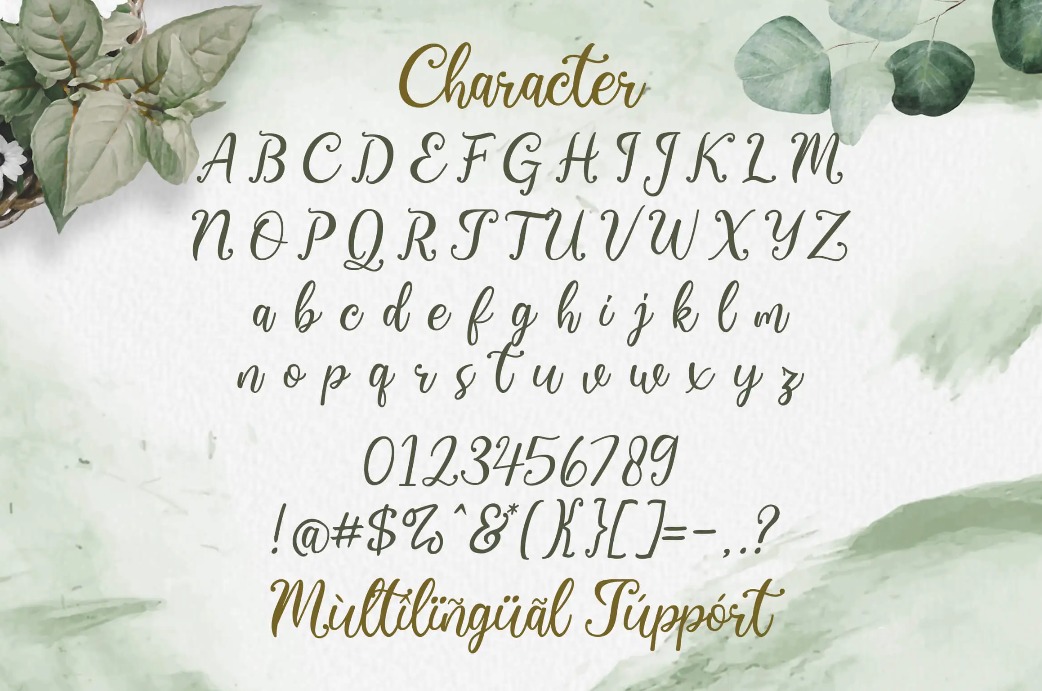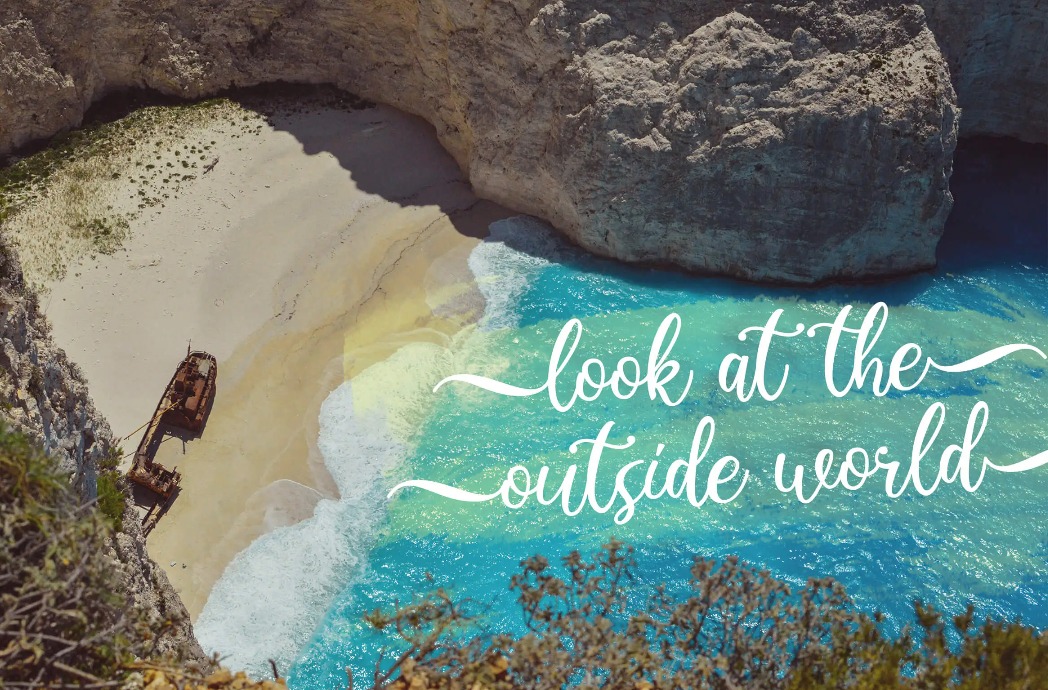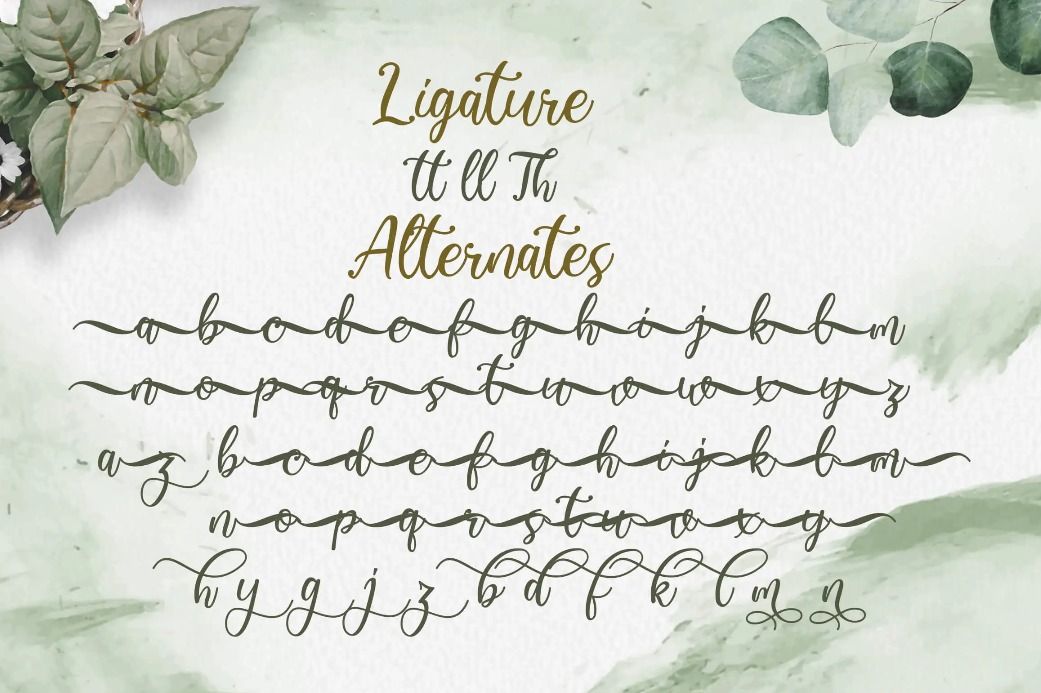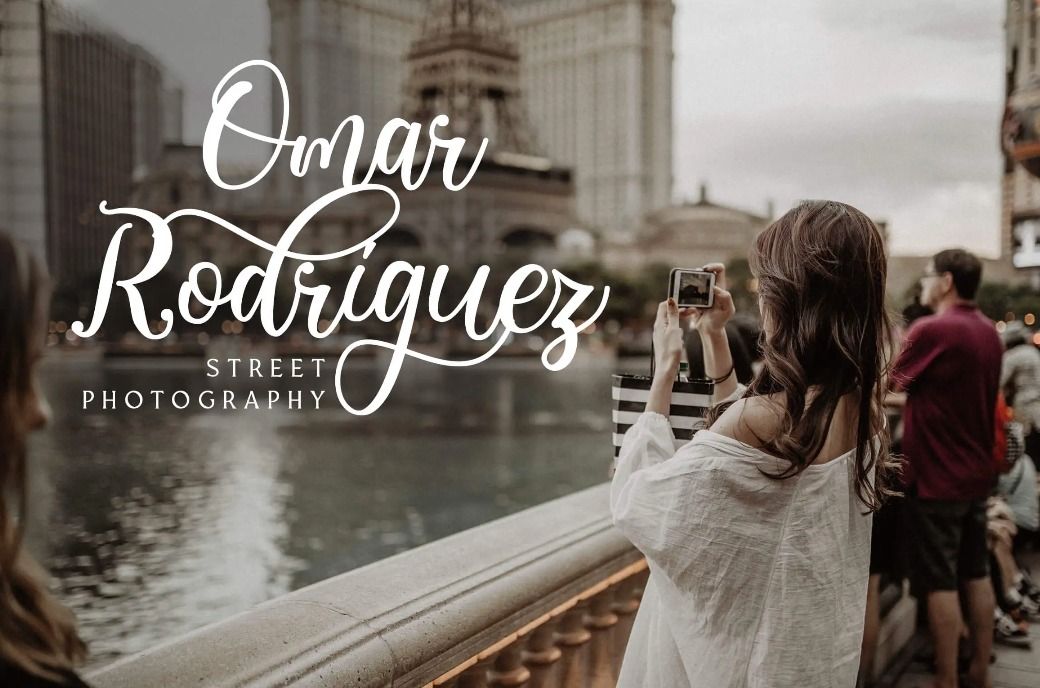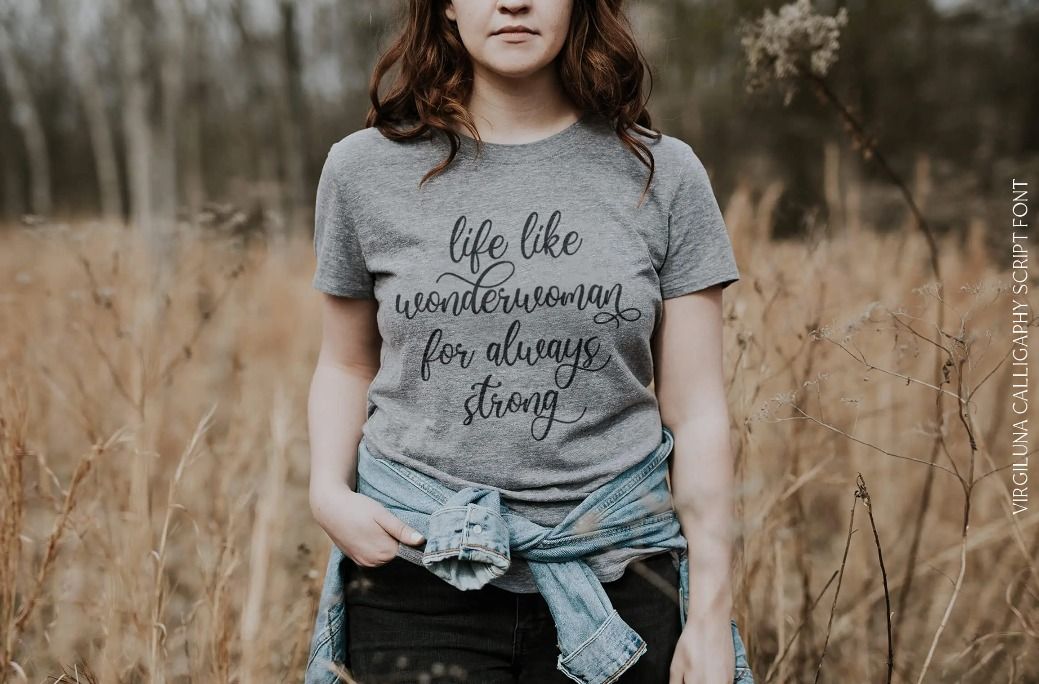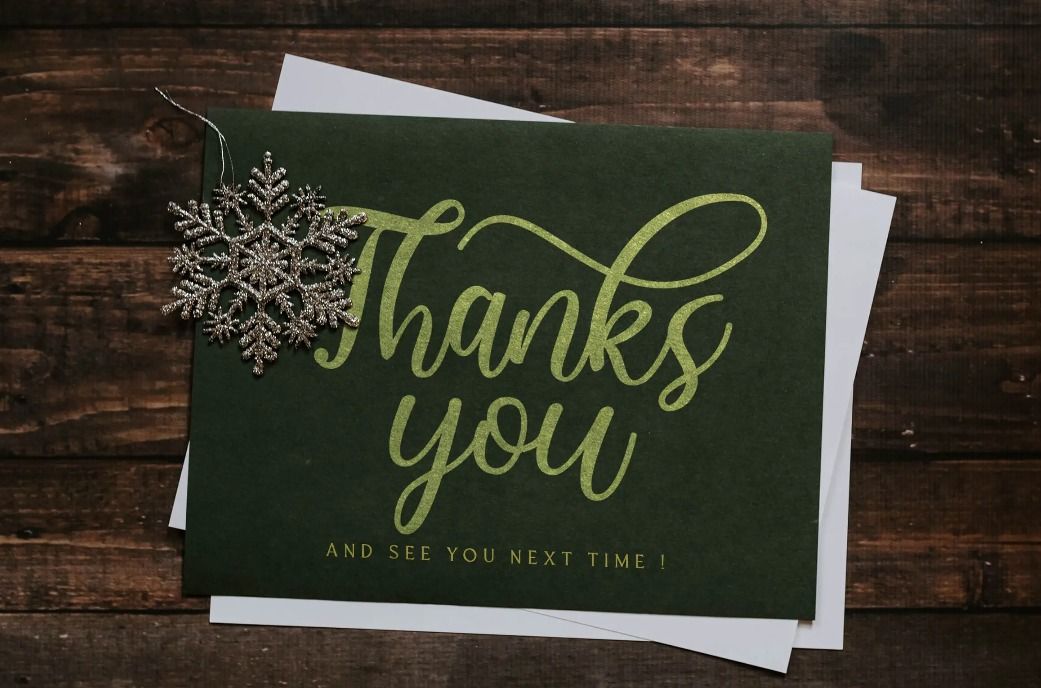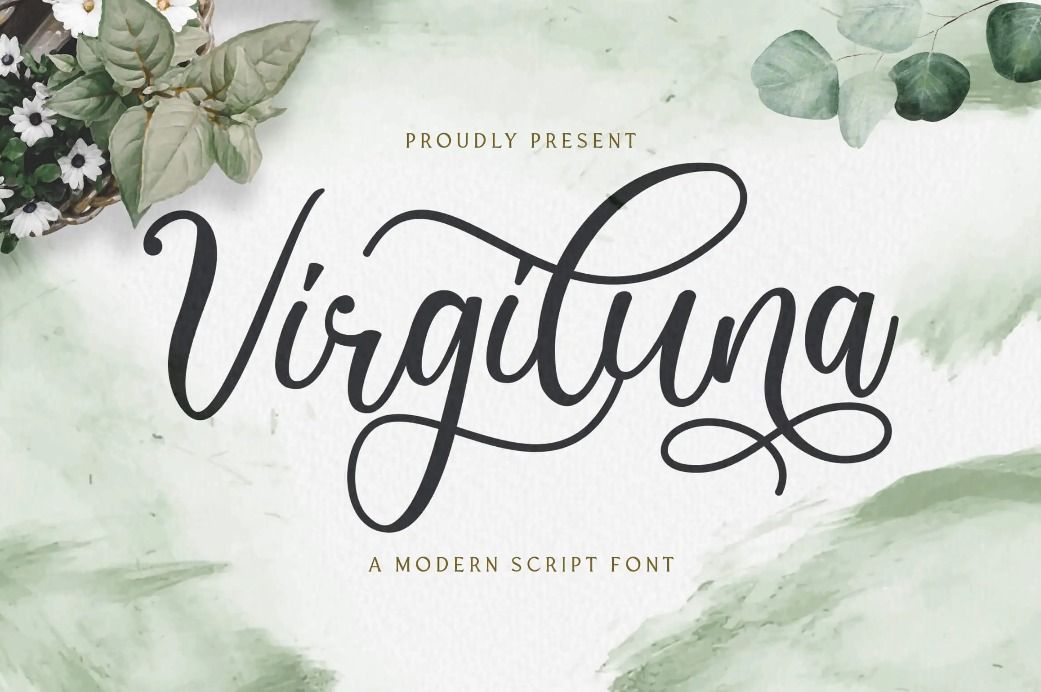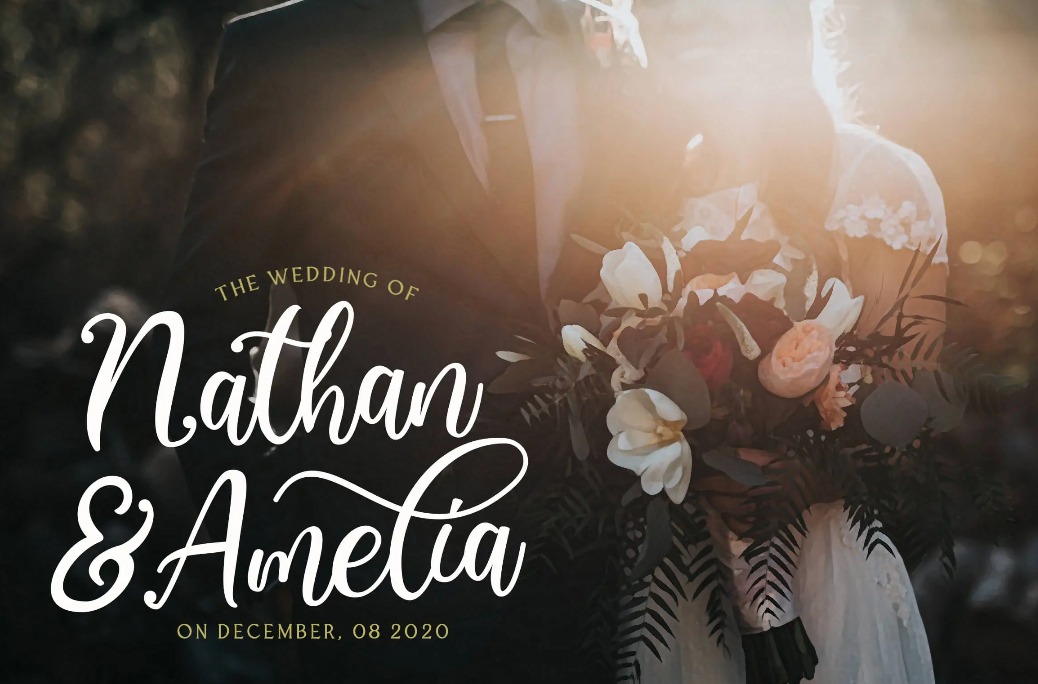
Virgiluna Font: Modern Handwritten Style for Bewitching Designs
Modern handwritten style is an excellent typography choice to present an exclusive and stunning feel. The swashes on each letter will be a decoration that gives a sweet and dramatic feel. Virgiluna font is a modern handwritten style that you can utilize for diverse designs, both formal and casual.
Deeper Exploration of Virgiluna Font
Virgiluna Font: Modern Handwritten Style for Bewitching Designs
Explore Virgiluna Font in Deep
Since its appearance is similar to handwritten brush strokes, calligraphy script fonts never fail to provide intimacy and exclusivity. The thick and thin lines on the letters also give a touch of stunning beauty. Letters connected to each other look neat and have excellent legibility.
This is because the kerning between letters is quite loose. Even though there are swashes, the decorations are present in perfect proportions so as not to make the design look crowded.
Deeper Exploration of Virgiluna
Features that can level up your design include uppercase letters, lowercase letters, punctuation, numbers, ligatures, and alternate characters. Combining these features with appropriate portions will create captivating text.
How to Perform the Virgiluna Font in Your Design?
Besides creating personal designs, you can also use Virgiluna for commercial designs. Its visually pleasing appearance will be a powerful weapon that can withdraw attention. Virgiluna enables you to create atmospheric and engaging writing which is perfect for the following visual design projects.
1. Photography
Virgiluna Font for Photograph
Photography is the art of communicating through photos. Each photo usually has a story and ambiance to convey to the audience. Sparks more attention by beautifying the photo with an appealing yet readable font for the text element!
Combining uppercase letters, lowercase letters, and alternate characters from the Virgiluna typeface in the text will make it look more stunning. Furthermore, curved and wavy lines on the alternate character swash of this font will give a strong effect that is adorable yet classy.
2. Wedding Invitation
Wedding Invitation with Virgiluna Font
Getting married is a sacred and historical moment because it is the beginning of a new life. Create an intimate yet elegant nuance by using the Virgiluna font for your wedding invitation. This cursive model is often used for invitations because it is proven to be able to create a magical and sweet ambiance.
Combining ligatures and alternate characters in the names of the groom and bride on the invitation can also give a blissful touch to your wedding invitation design.
3. Clothing Line
Clothing Line Using Virgiluna Font
The fashion industry never gets old because clothes are a basic need. Not only does fashion prioritize models, usually it also emphasizes the singularity of the text on t-shirts, hats, or jackets.
Since the appearance of modern handwriting is strong with an elegant and adorable effect, it would be more appropriate to use the Virgiluna font for writing that is encouraging. This font not only fits clothing products with feminine themes but is also a match for casual tones.
4. Thank You Card
Virgiluna on Thank You Card Design
It is no longer a secret that customers are an essential part of business continuity. To make consumers feel pleased and appreciated after shopping at your store, give them a thank you card. Cards with simple writing are a powerful weapon to make customers loyal.
Virgiluna on Thank You Card Design
Virgiluna’s lines and decorative accessories not only give a friendly but also a sincere feel. To create a supple and warm impression, use alternate characters that use a start line stroke ornament for the first letter.
In order to produce a balanced and proportional design, use letters from alternate characters that have an ending line stroke.
5. Headlines
Virgiluna Application for Headlines
Headlines in magazines or social media posts hold a huge influence on engagement with the audience. Also, the combination of words and font choice will greatly determine the audience’s desire to follow up.
Virgiluna Application for Headlines
Virgiluna font with excellent readability and the sweet design of each letter is impactful to spark the audience’s temptation. Especially if the target audience is female, this font will truly represent elegance, sweetness, and beauty.